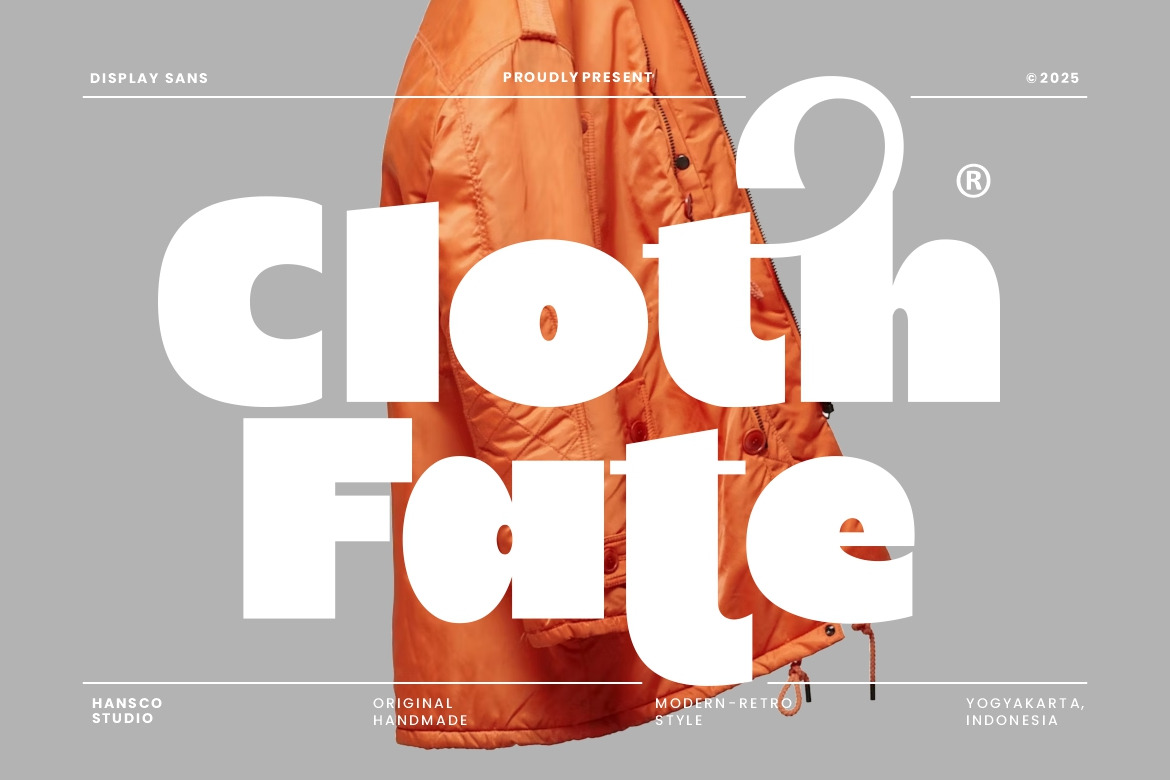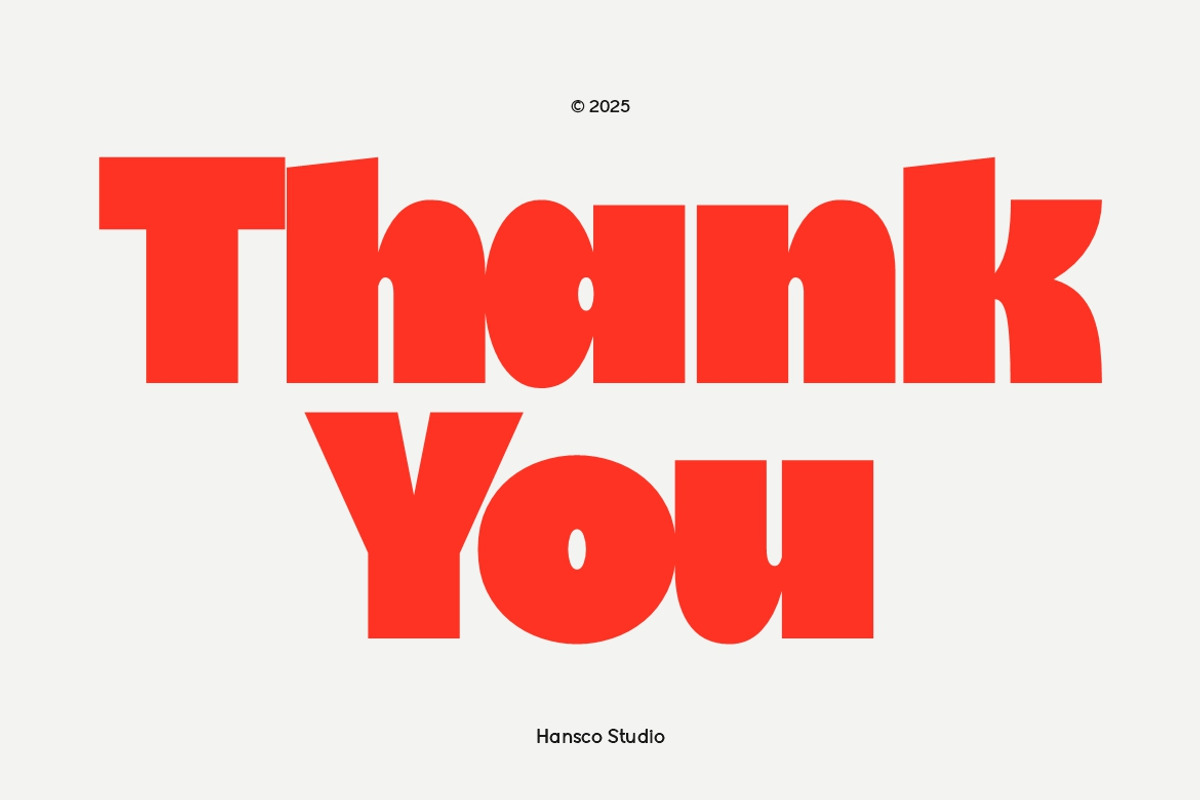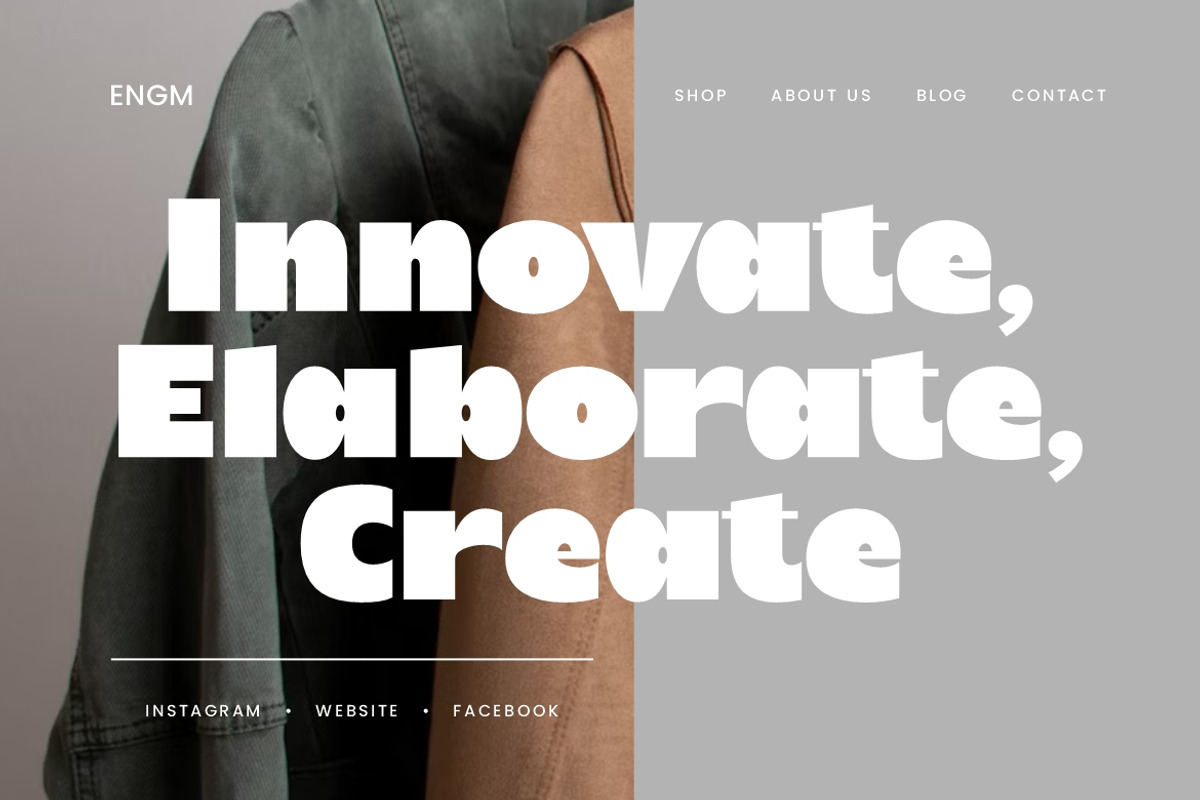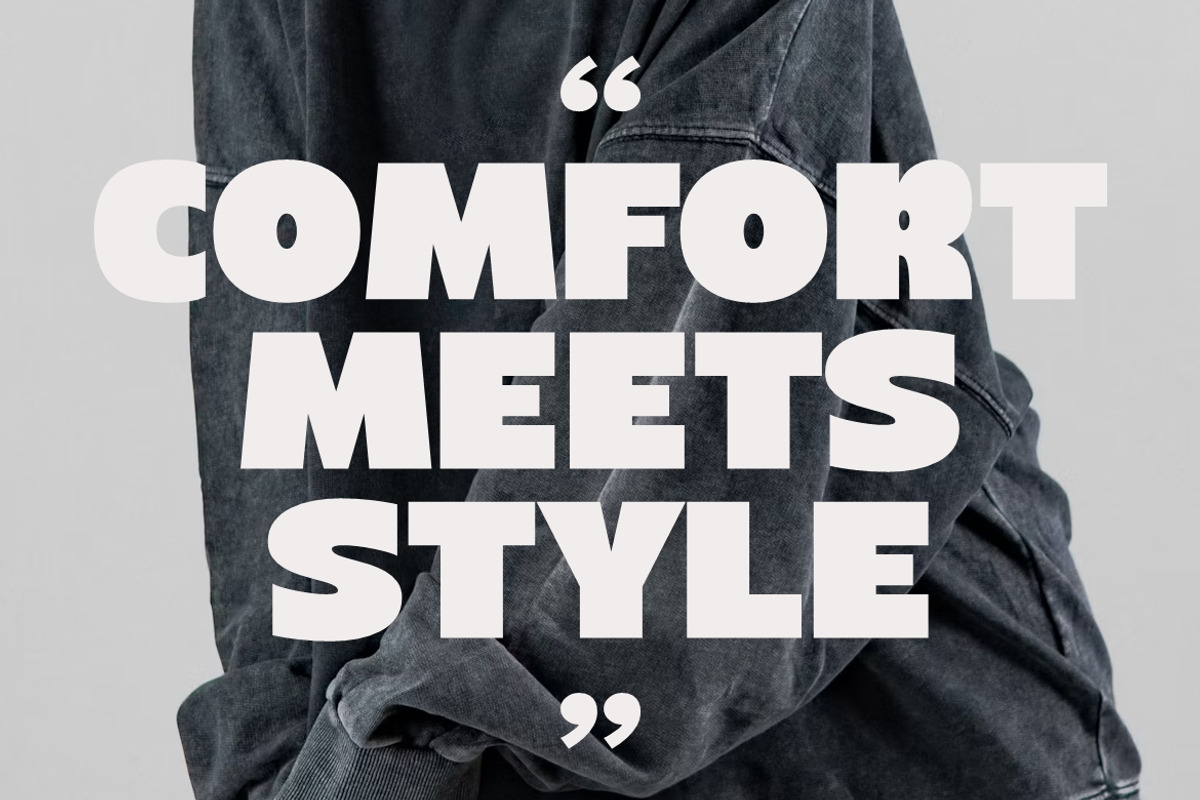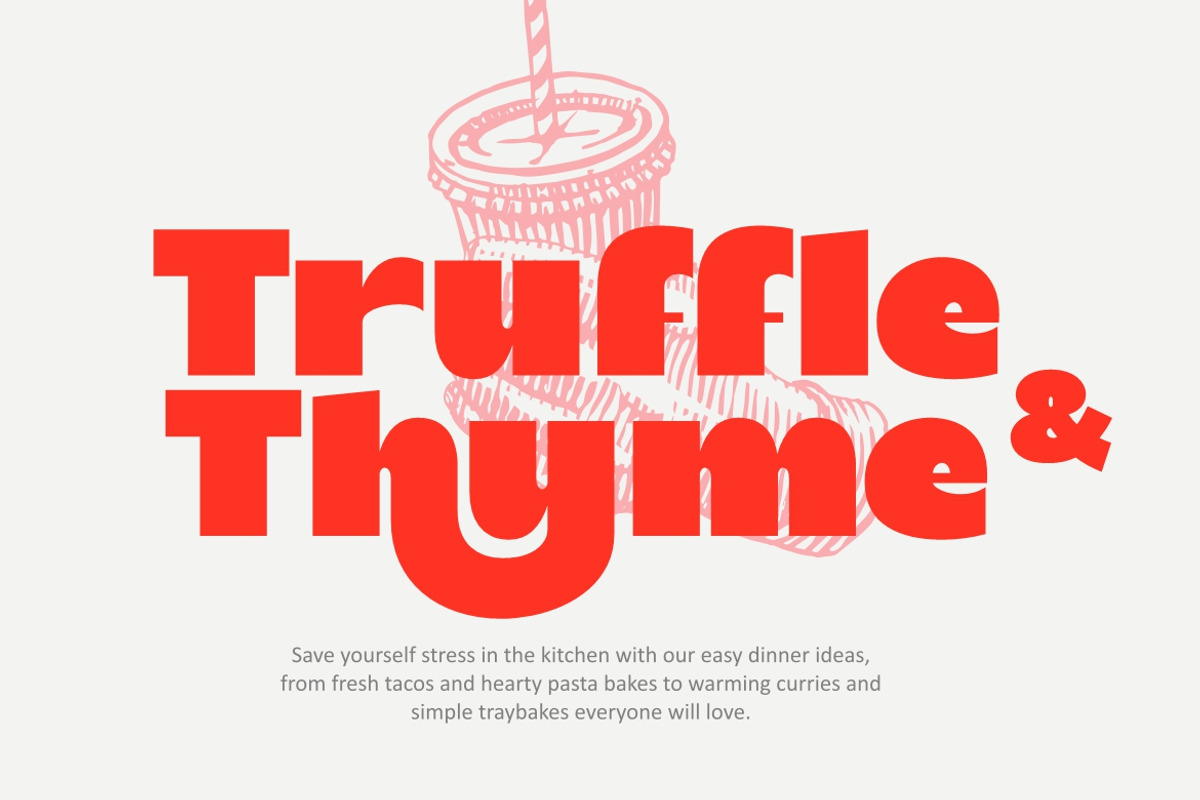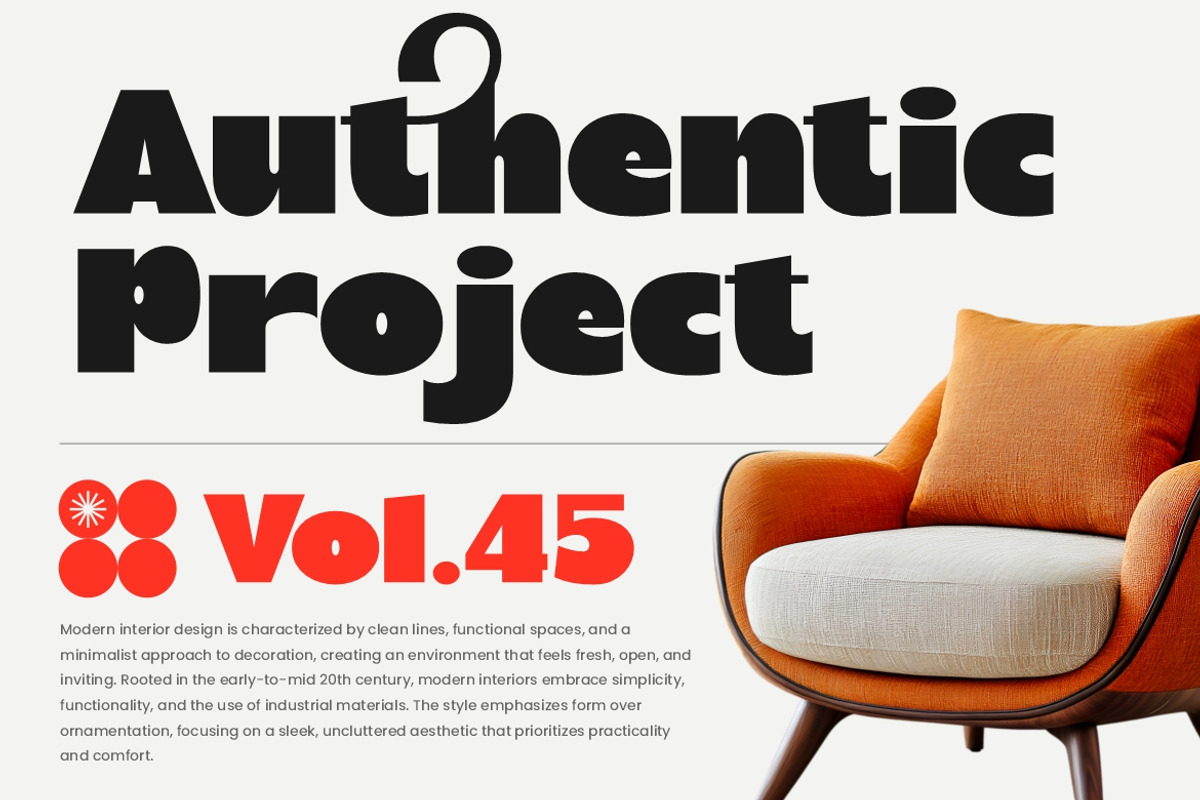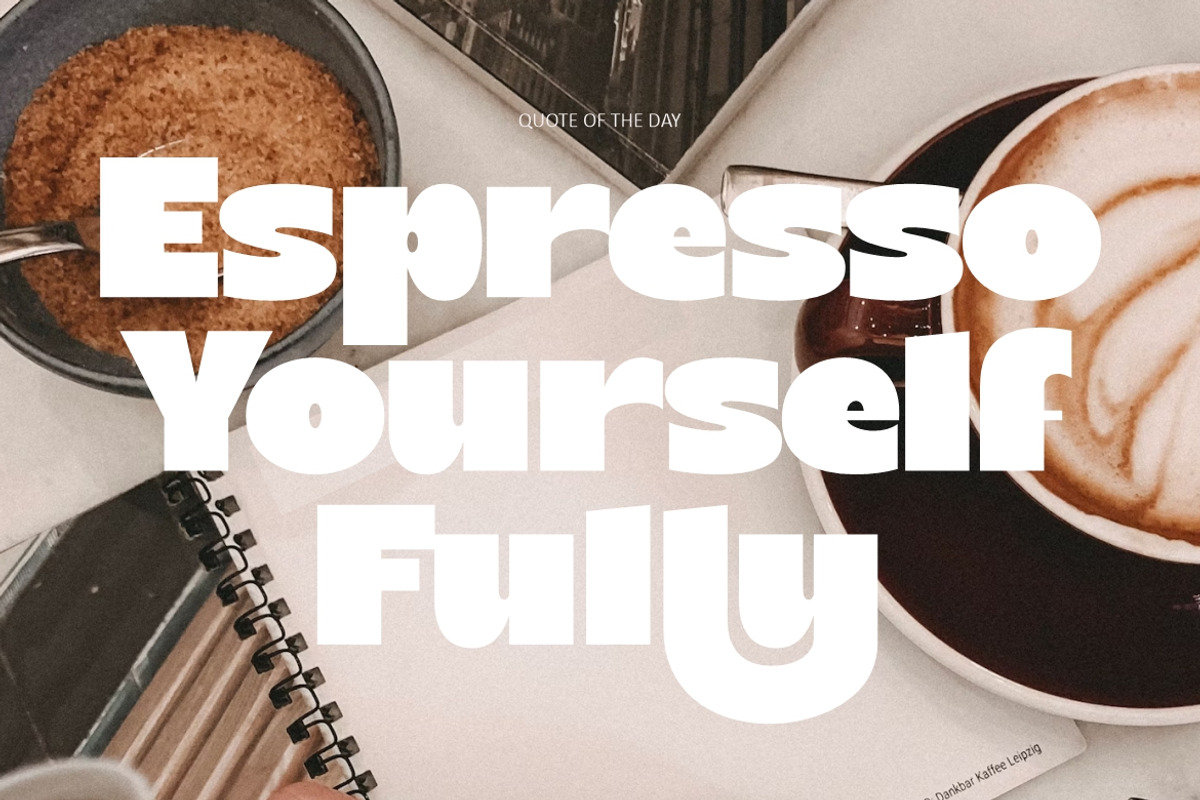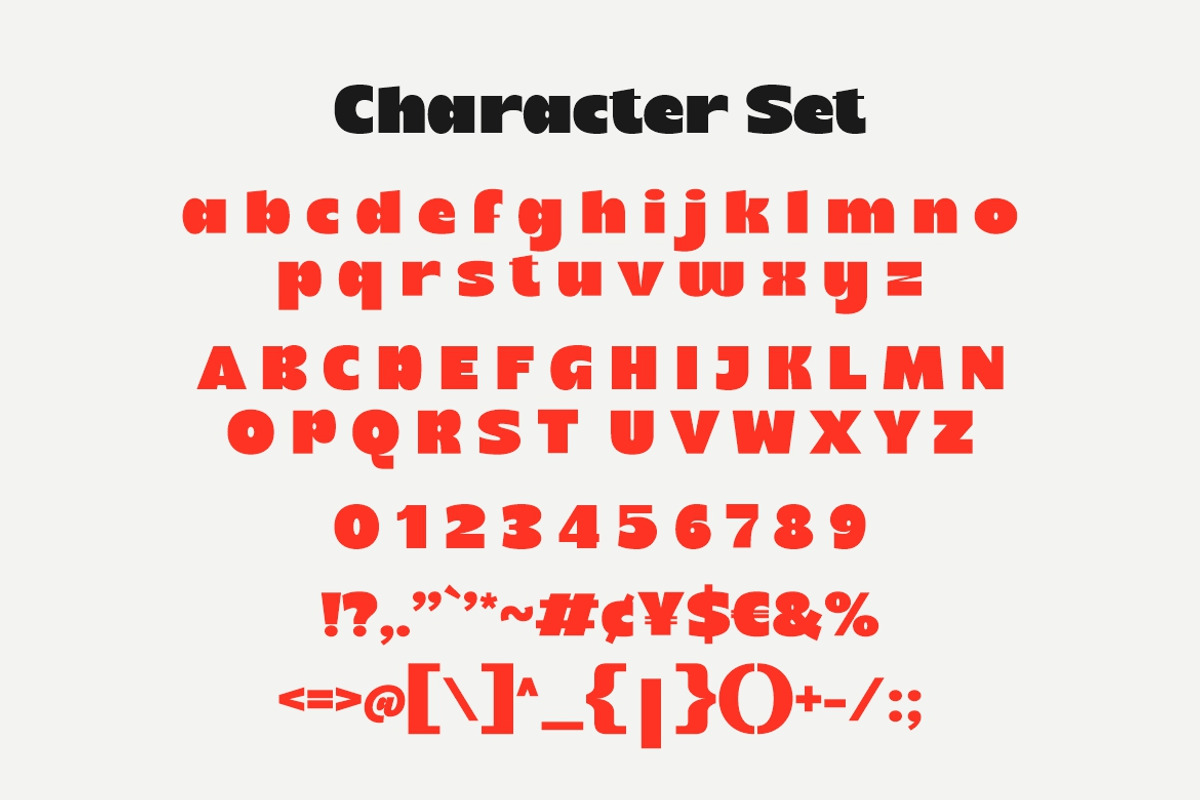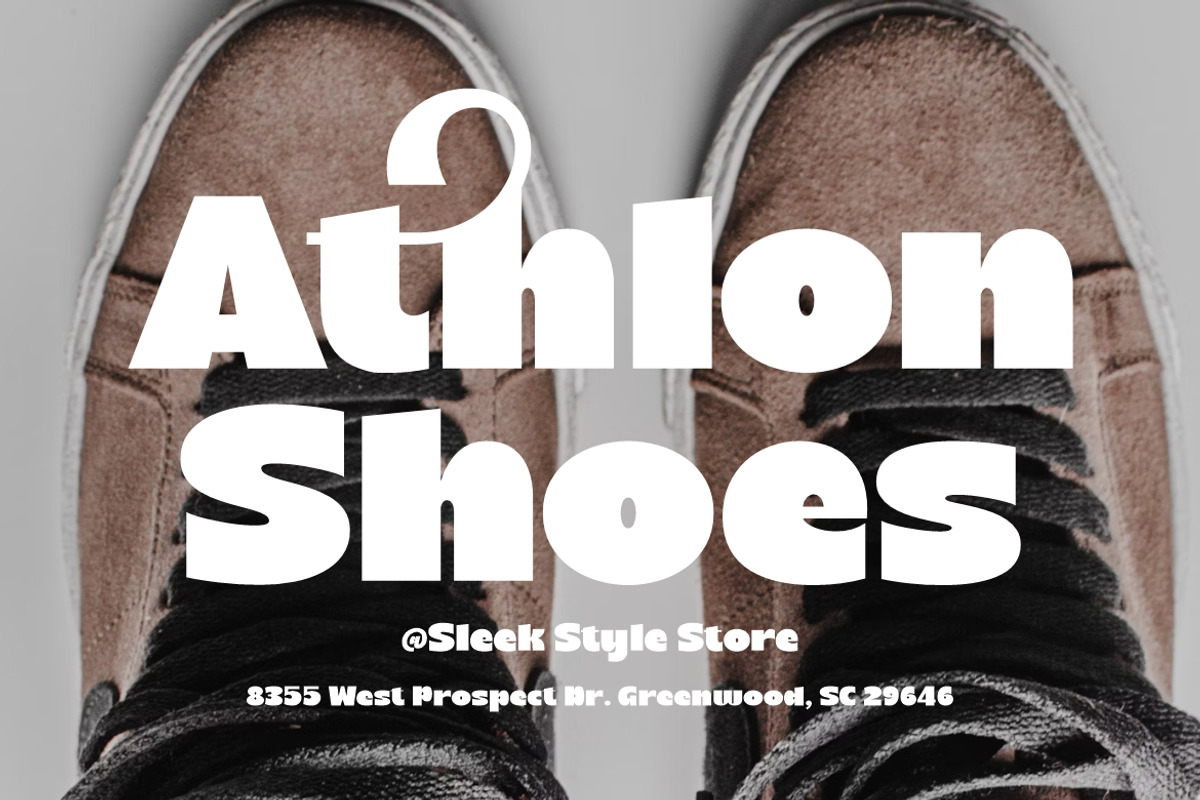
Cloth Fate - Bold Sans Serif Font
Cloth Fate is a display bold sans serif font with modern look!. Equipped with all complete characters ranging from lowercase, uppercase letters, numbers, punctuation marks and multi-lingual support, this font is ready to be used in any project. Very suitable for Logotype, Stickers, Packaging design, Cricut Project, Headlines, Brand identity, Posters, Magazines, Books, YouTube, Instagram, Websites, Canva, Corjl or any of your creative design projects.
Lowercase & Uppercase
Ligature for some Character